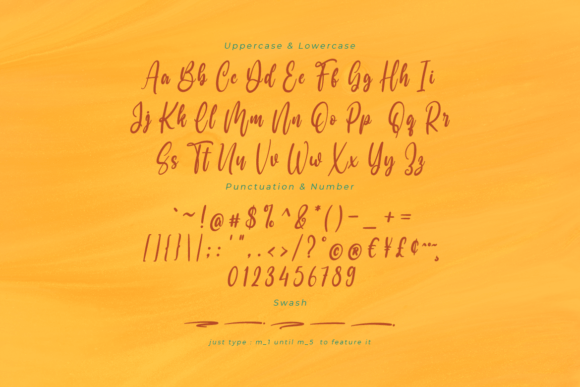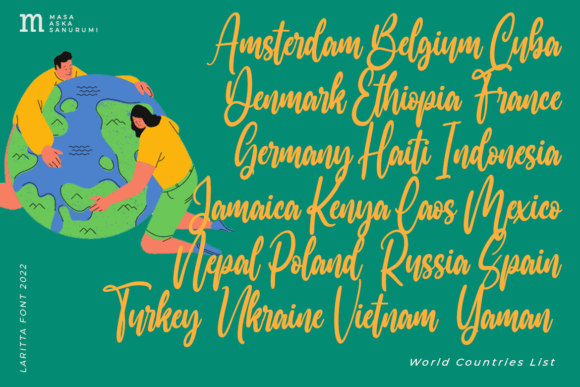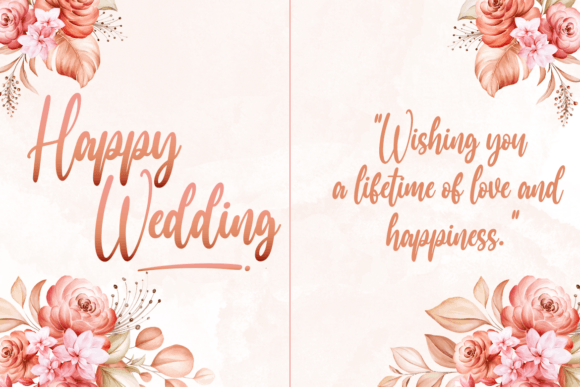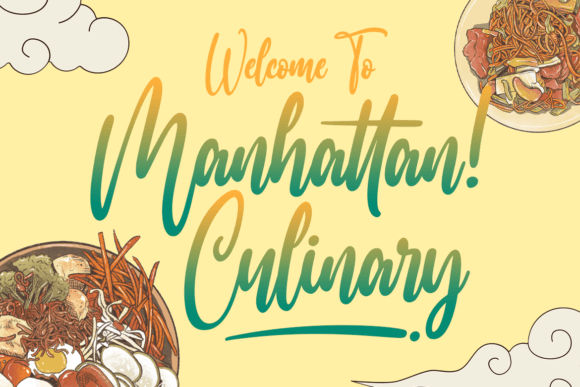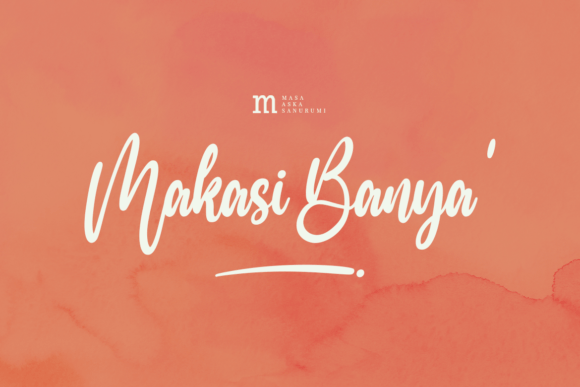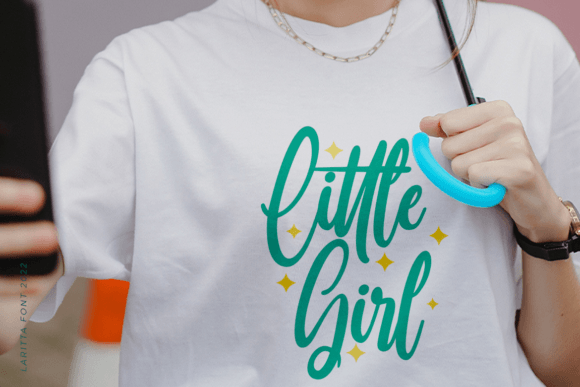
Introduction to Lariatta Font
Remember that moment when a beautiful font transforms your creative project into a stunning piece of art? For many designers, it’s a moment of pure joy. And if you’re reading this, chances are you’re on the hunt for the perfect font to elevate your design. That’s where the Lariatta Font comes in – a gorgeous, organic script font that’s about to become your new favorite design resource.
With its simplicity and style, the Lariatta Font is a high-quality addition to any design arsenal. Whether you’re creating Instagram-worthy graphics, crafting calligraphy scripts for DIY projects, or simply need a beautiful font for a personal project, this font is sure to turn your ideas into a true work of art. And the best part? It’s available for free download, making it an accessible design resource for designers of all levels.
What sets the Lariatta Font apart is its versatility and ease of use. From transparent backgrounds to intricate designs, this font can be used in a variety of creative ways to add a touch of elegance and sophistication to your work.
Key Features of Lariatta Font
- Unique, hand-drawn design perfect for creative projects that require a touch of elegance and sophistication.
- Comes in a transparent background version, ideal for designers who want to create visually appealing designs with a clear background.
- Perfect for use in logos, branding materials, and other design elements where a unique and stylish font is required.
Honest Review: Lariatta Font
I recently had the opportunity to work with the Lariatta Font, and I must say it’s a fantastic design resource for any creative project. This high-quality font is perfect for adding a touch of elegance to your designs, whether you’re working on a logo, brochure, or website.
One of the standout features of the Lariatta Font is its versatility. It’s available for free download, making it an excellent choice for designers on a budget. The font is also highly customizable, allowing you to adjust the size, color, and style to fit your design needs.
- ✨ High-quality design with a professional look and feel
- ✨ Versatile and highly customizable
- ⚠️ The font may not be suitable for designs that require a transparent background, as it’s a solid color
- ⚠️ Some users may find the font a bit too ornate for certain design projects
Overall, I’m impressed with the Lariatta Font. It’s a valuable addition to any designer’s toolkit, and I’d highly recommend it for any creative project that requires a touch of sophistication.
The Lariatta Font is perfect for various design projects, including branding, marketing materials, and digital graphics. Its high-quality design and transparent background make it ideal for use in creative projects where visual clarity is essential.